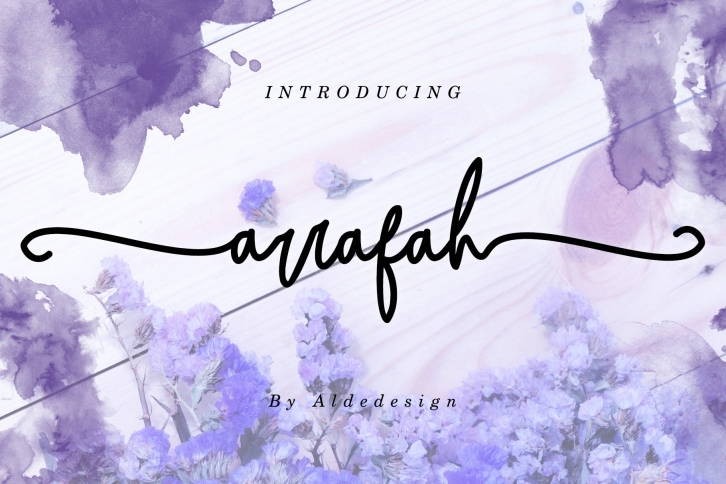
Arrafah Fashionable Handwritten is a gorgeous font that was realeased on April 17, 2021. The font can be used in many style contexts and design environments. Perfect for invitations, magazines, websites, logos, and more! It was designed by aldedesign and the file size is 4.75 MB. Thanks for checking out this font!